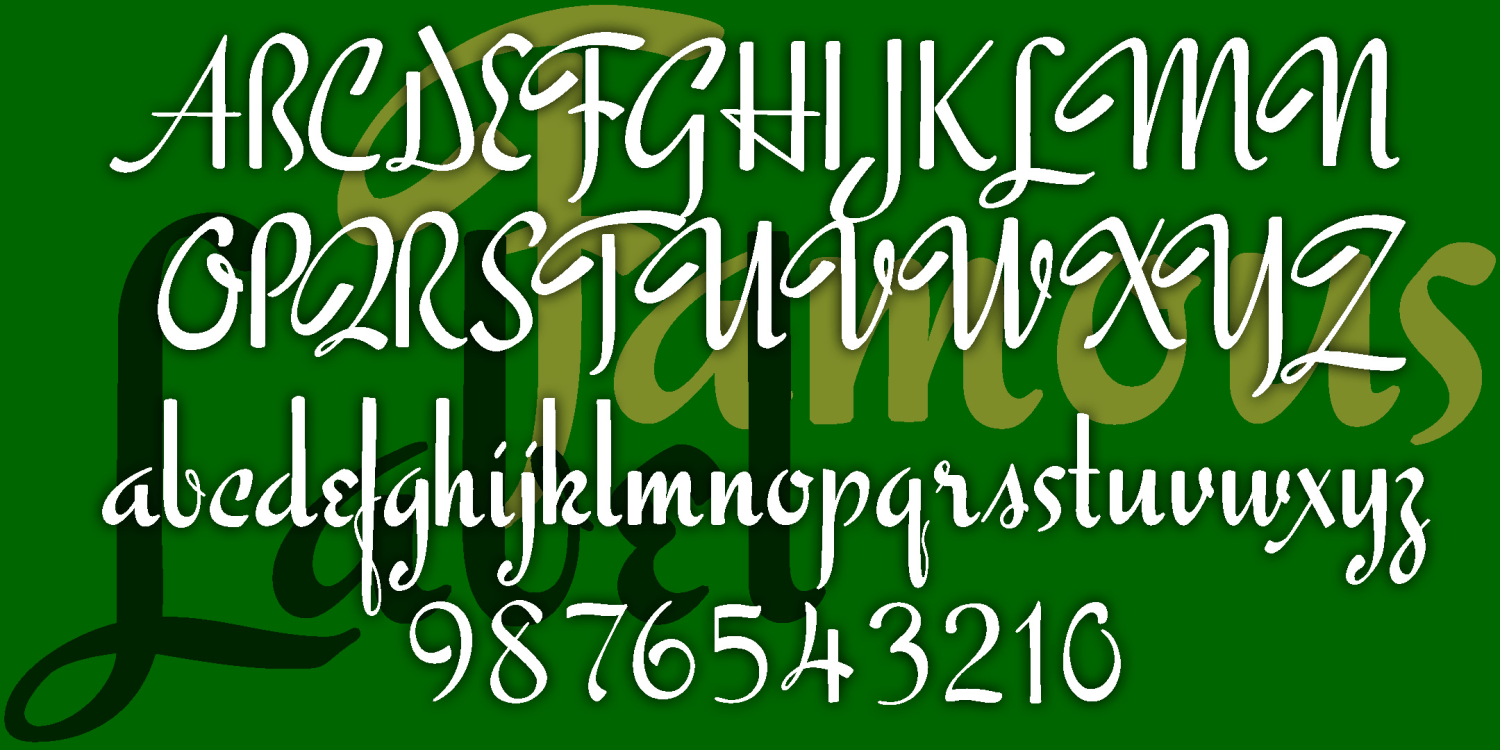
HomeFont BrosArt Deco (1910-1935)Famous Label Art Deco (1910-1935)Scripts: FormalScripts: Casual Famous Label FacebookXPinterestWhatsApp 1 of 1 About Famous Label FAMOUS LABEL is vertical script with the retro-posh feel of a department store logo. Inspired by a style of pen lettering illustrated in Alphabets: Ancient & Modern, compiled by J. B. Russell, 1945.  DOWNLOAD ON FONT BROSThis font is sold and delivered by Font Bros. Font Canyon may earn a commission if you buy through this link. People also explored Charming Font Helter Font Metamora Font Domino Doodle Font Juliaguz Font Destiny Font Strawberry Cake Font Katika Font Breaking Dawn Font 301 0 TagsFamous Label Font Previous articleYWFT OwenNext articleSweet Rosie LEAVE A REPLY Cancel reply Comment: Please enter your comment! Name:* Please enter your name here Email:* You have entered an incorrect email address! Please enter your email address here Website: Save my name, email, and website in this browser for the next time I comment. Personal Use Free Soria Personal Use Free Read more about this font BD TinyFont Personal Use Free Read more about this font New System Personal Use Free Read more about this font Rembank Personal Use Free Read more about this font BLOG How to Cut Any Font on Cricut: Convert a Font to SVG (Free) Turn any font into a clean SVG so it cuts crisp on Cricut - a quick 3-step workflow using a free font-to-SVG tool. Modern Sans-Serif Fonts That Brands Love in 2025 Where to Buy American Fonts Online in 2024 To increase your work productivity, choose the most readable fonts.